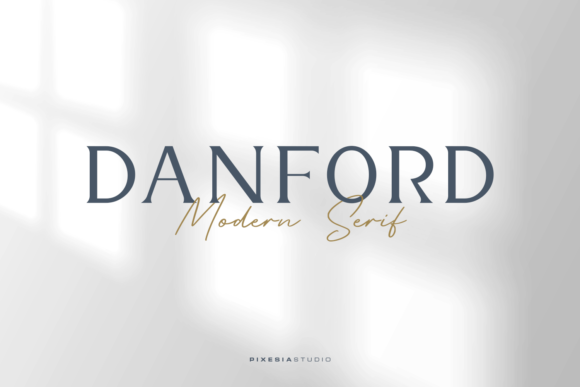
Danford Font
**Introducing Danford Font: The Bold and Cool Serif for Unforgettable Designs**
Embark on an extraordinary typographic journey with Danford Font, a captivating serif creation from the esteemed Pixesia Studio. This remarkable font exudes boldness and unmatched style, promising to elevate your designs to new heights.
Danford's intricate serifs and pronounced curves dance gracefully across the page, creating an undeniable visual impact that commands attention. Its distinctive character shines through in every letterform, from the sharp angles to the sweeping flourishes. This meticulously crafted font is a true gem, designed to leave a lasting impression on your audience.
**Unleash Endless Creative Possibilities:**
Danford Font's versatility knows no bounds. Its bold presence makes it the perfect choice for eye-catching headlines, captivating posters, and impactful logos. Whether you're crafting elegant invitations, creating stunning packaging, or designing memorable websites, Danford will add a touch of sophistication and originality to your work.
**Label Design Nirvana:**
For those seeking the ultimate font for labeling, Danford reigns supreme. Its bold strokes and clear readability ensure that your product labels will stand out from the crowd. Danford's ability to convey both elegance and strength makes it the ideal companion for showcasing your brand's personality and distinctiveness.
**A Font That Inspires:**
Danford Font is more than just a collection of characters; it's a catalyst for creativity. Its unique style will ignite your imagination and inspire you to push the boundaries of design. Embrace the boldness of Danford and watch your creations transform into works of art.
**Experience the Danford Difference Today:**
Don't settle for ordinary fonts. Choose Danford and experience the transformative power of true typography. Its bold strokes, elegant curves, and unmatched versatility will empower you to create designs that captivate, inspire, and leave an unforgettable mark.